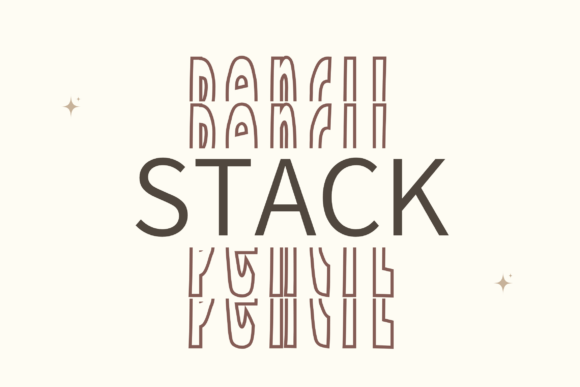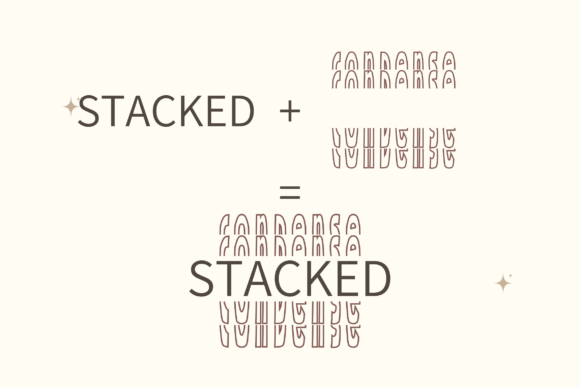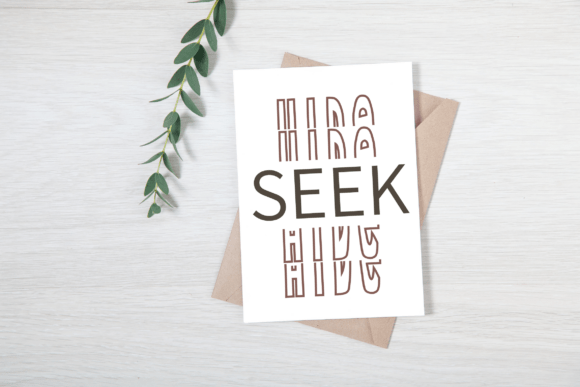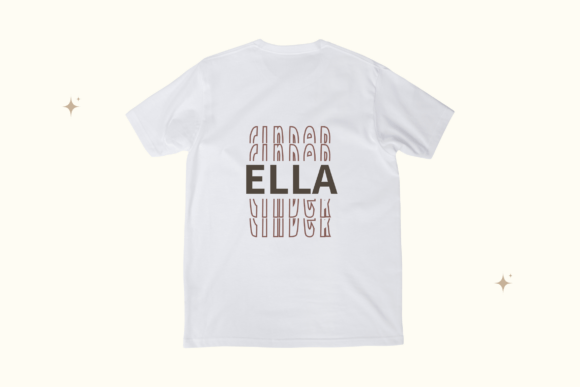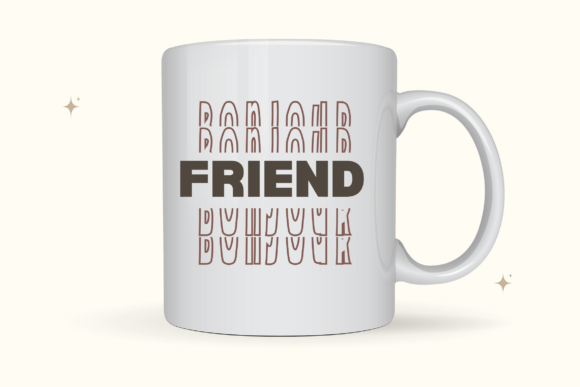
Introducing the Condense Stacked Monogram Font: Elevate Your Designs with Timeless Elegance
In the realm of typography, a well-crafted font can make all the difference in elevating a design from ordinary to extraordinary. For designers and crafters seeking to infuse a touch of sophistication and contemporary chic into their projects, the Condense Stacked Monogram Font is an exceptional choice. This meticulously designed typeface boasts a slim profile, streamlined formations, and a stacked elegance that is sure to leave a lasting impression.
Unparalleled Versatility and Application
The Condense Stacked Monogram Font is specifically tailored to excel in a variety of design applications, particularly where a personalized touch is paramount. Its slender width and refined aesthetic make it an ideal choice for:
- Personalized Initials and Monograms: Add a dash of elegance to personalized stationery, wedding invitations, and bespoke gifts with beautifully crafted monograms.
- Branding Insignias and Logos: Elevate your brand’s visual identity with a sophisticated logo that exudes luxury and refinement.
- Wedding-Themed Designs: Bring a touch of timeless romance to wedding stationery, decorations, and favors with this exquisite font.
- High-End Fashion Labels: Infuse your fashion brand with a sense of luxury and sophistication through the use of this elegant typeface.
- Lavish Packaging: Make a statement with premium packaging designs that showcase your brand’s commitment to quality and style.
Design Characteristics and Benefits
The Condense Stacked Monogram Font is distinguished by several key characteristics that set it apart from other typefaces:
- Slim Profile: A slender width that ensures versatility and adaptability across various design platforms.
- Streamlined Formations: Elegantly crafted letterforms that convey a sense of sophistication and refinement.
- Stacked Elegance: A unique stacked design that adds a touch of luxury and timelessness to any project.
- Contemporary Aesthetics: A modern and chic appearance that ensures your designs stay fresh and relevant.
The Condense Stacked Monogram Font is a versatile and sophisticated typeface that offers designers and crafters an unparalleled opportunity to elevate their projects with timeless elegance. Its slim profile, streamlined formations, and stacked design make it an exceptional tool for creating compelling monogram impressions, branding insignias, logos, and stationery. Whether you’re working on wedding-themed designs, high-end fashion labels, or lavish packaging, this font is sure to bring a unique touch of stacked elegance to the table. By incorporating the Condense Stacked Monogram Font into your design repertoire, you’ll be well-equipped to create stunning, high-quality designs that leave a lasting impression.